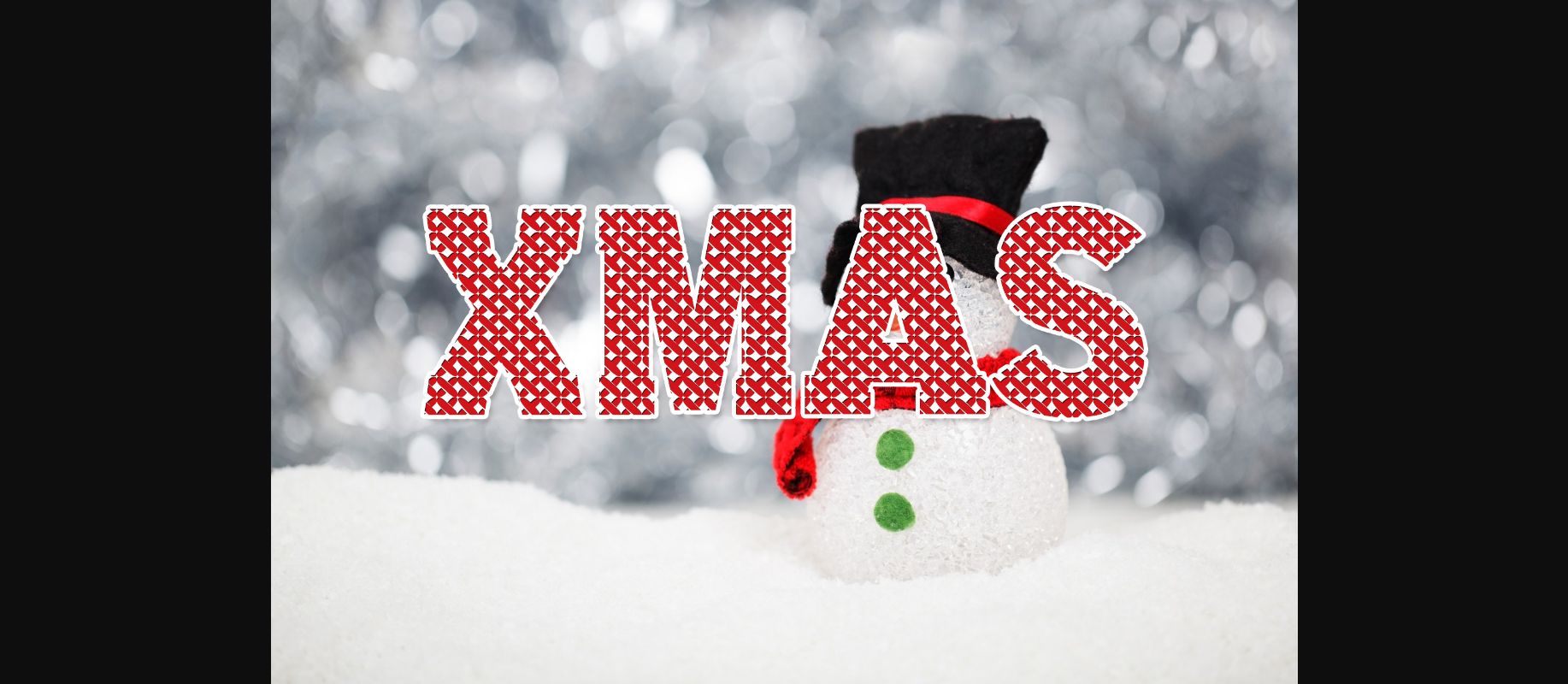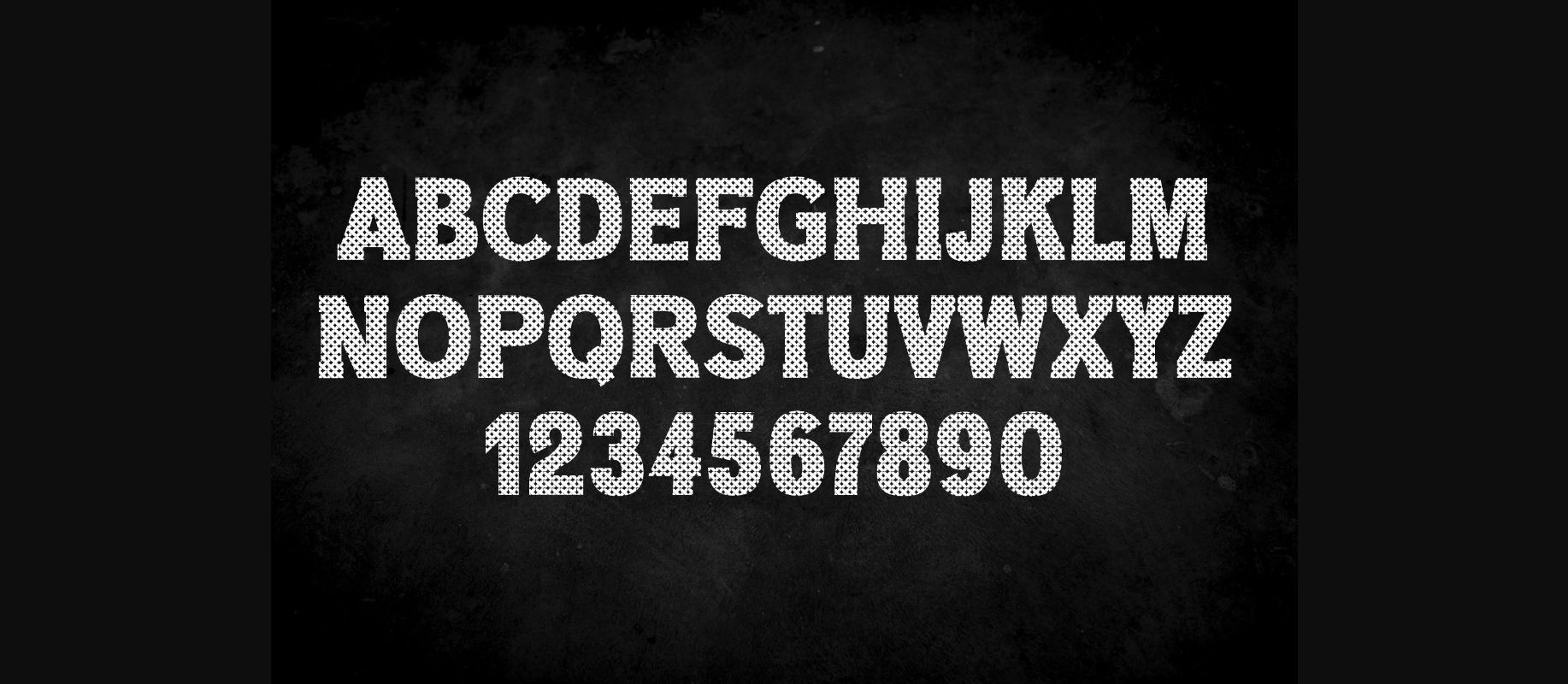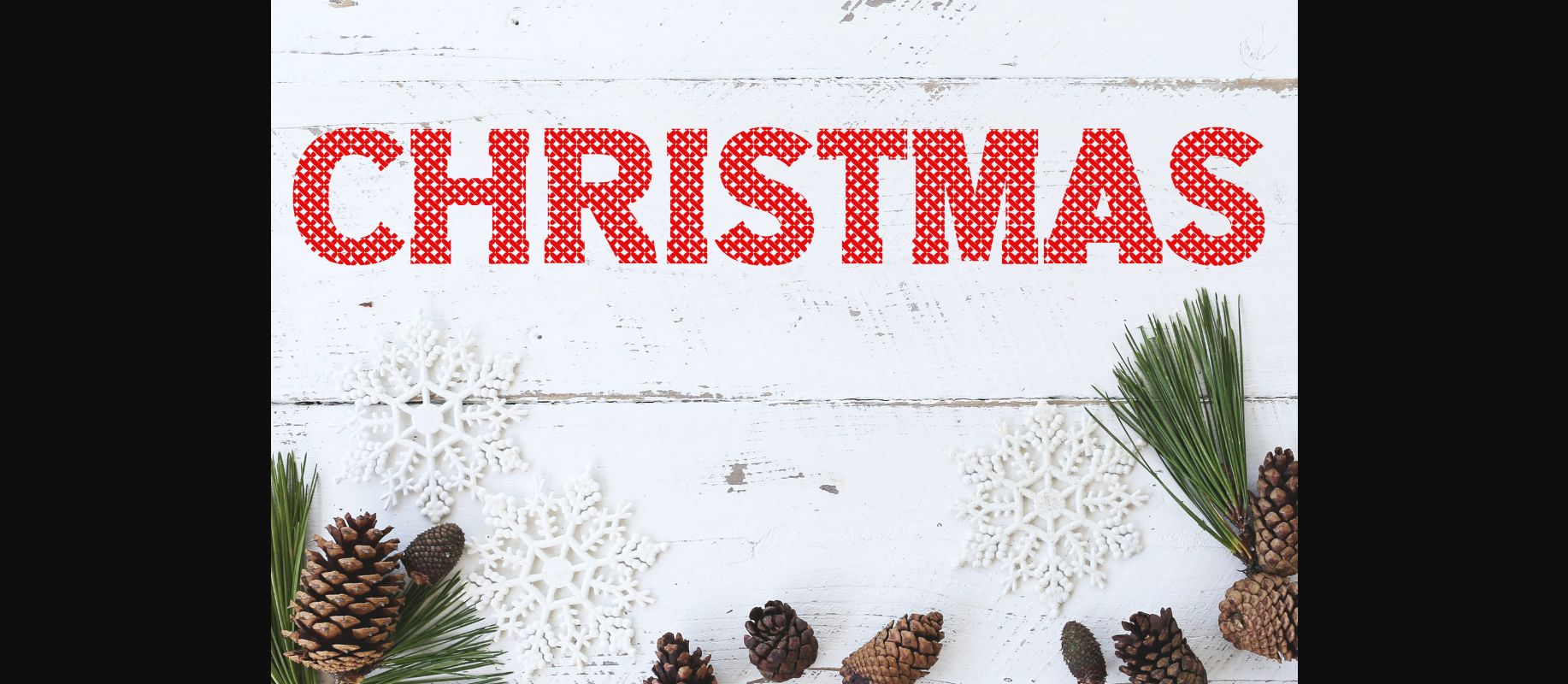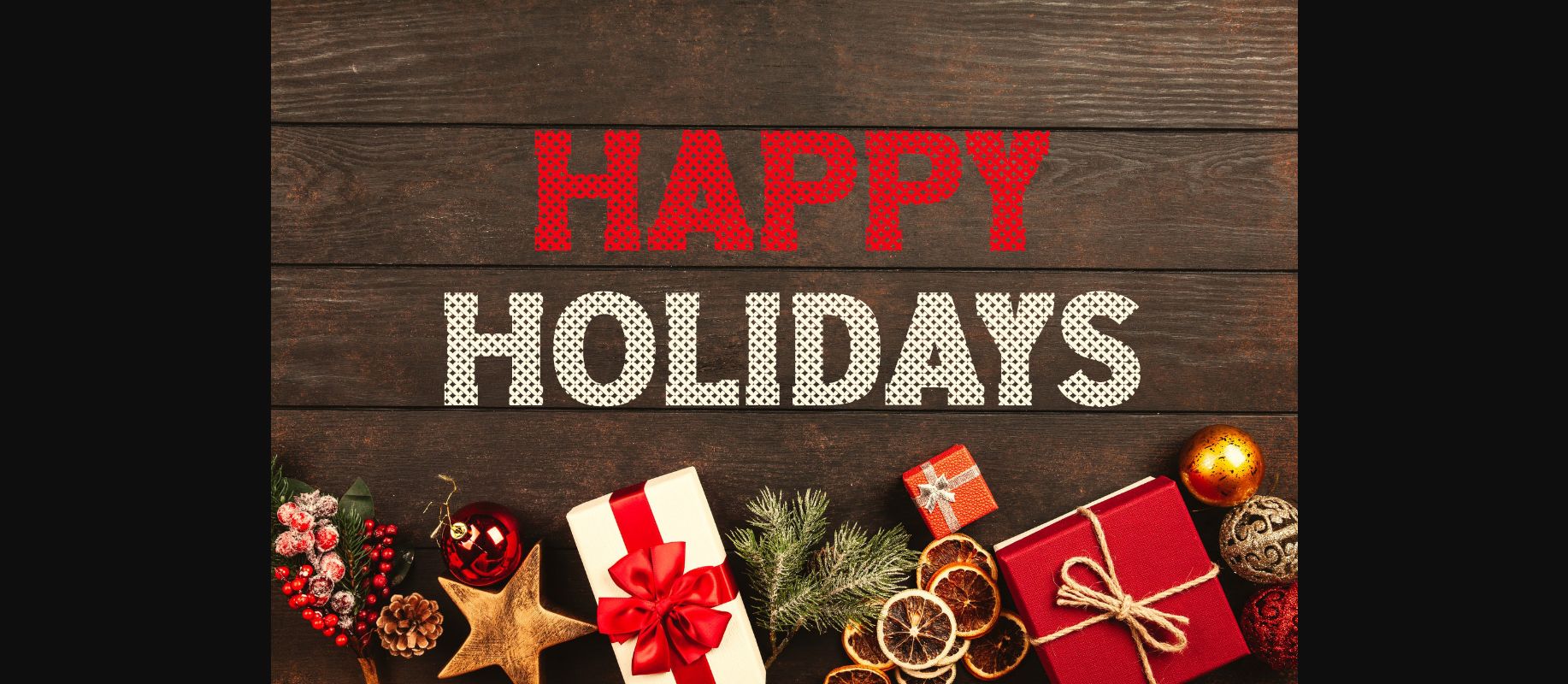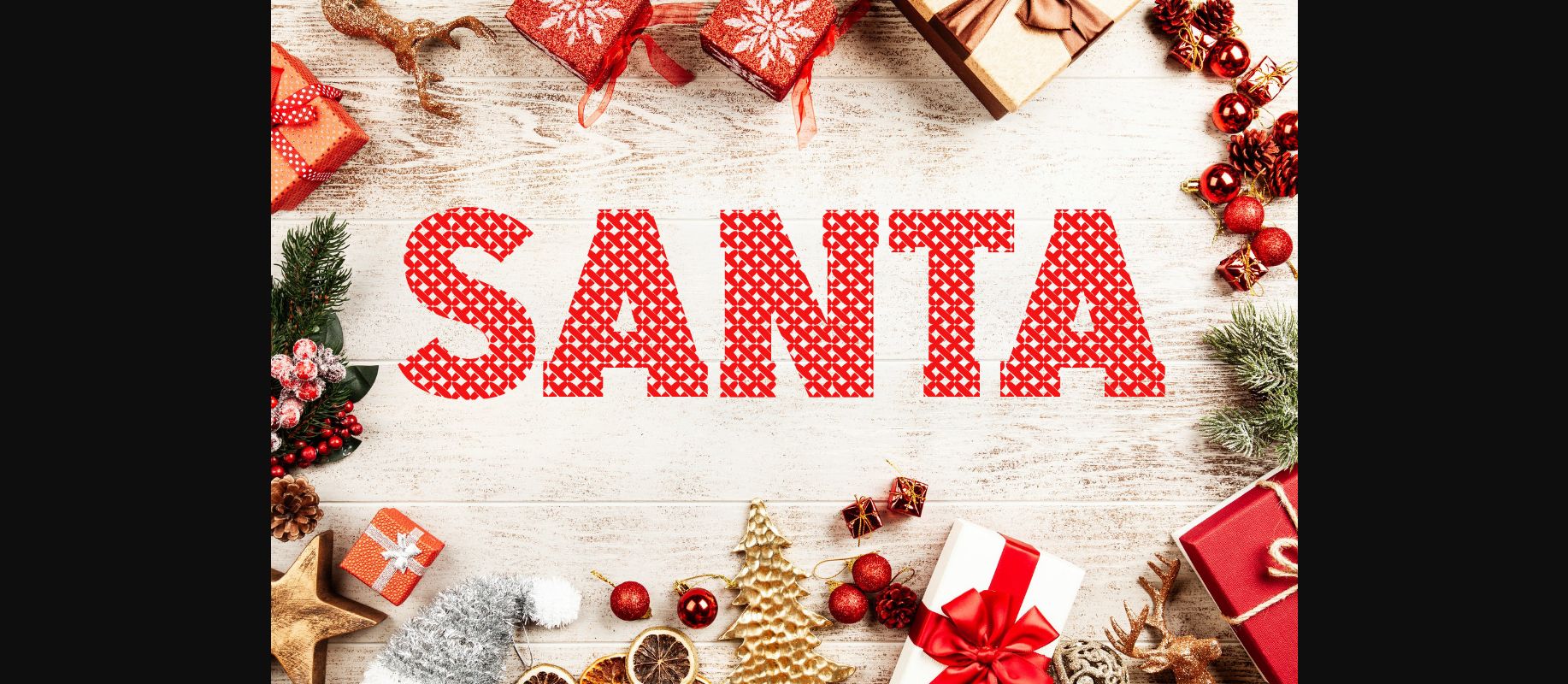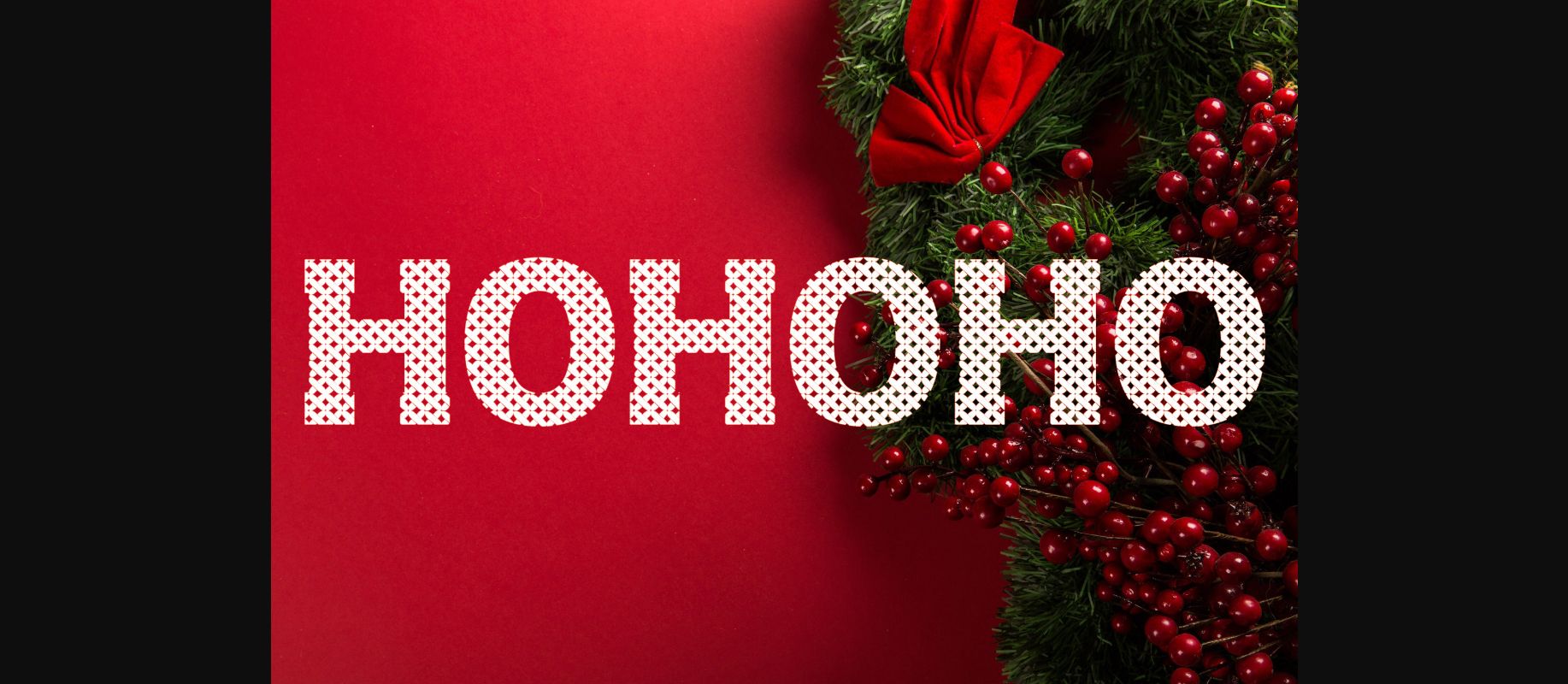
About Xmas Font
Xmas is a decorative font that has a very unique and festive feel to it with its cross-stitch design. This is the perfect font to use for your festive crafts and holiday creations.